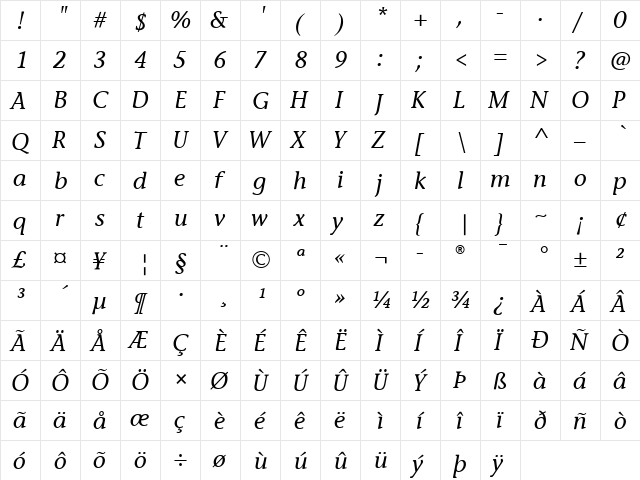
StoneInfITC Medium Italic Font Preview
StoneInfITC Medium Italic
StoneInfITC Medium Italic Font Details
| Style | Medium Italic |
| Foundry | International Typeface Corporation |
Design Context for StoneInfITC Typeface
StoneInfITC is a composed and adaptable typeface that performs quietly and consistently across a wide range of design contexts. Its italic angle brings a sense of urgency and motion to the letterforms.
Pro Tip: Try StoneInfITC for annotation and caption copy alongside an upright companion — the contrast in angle creates a dynamic but ordered typographic system.